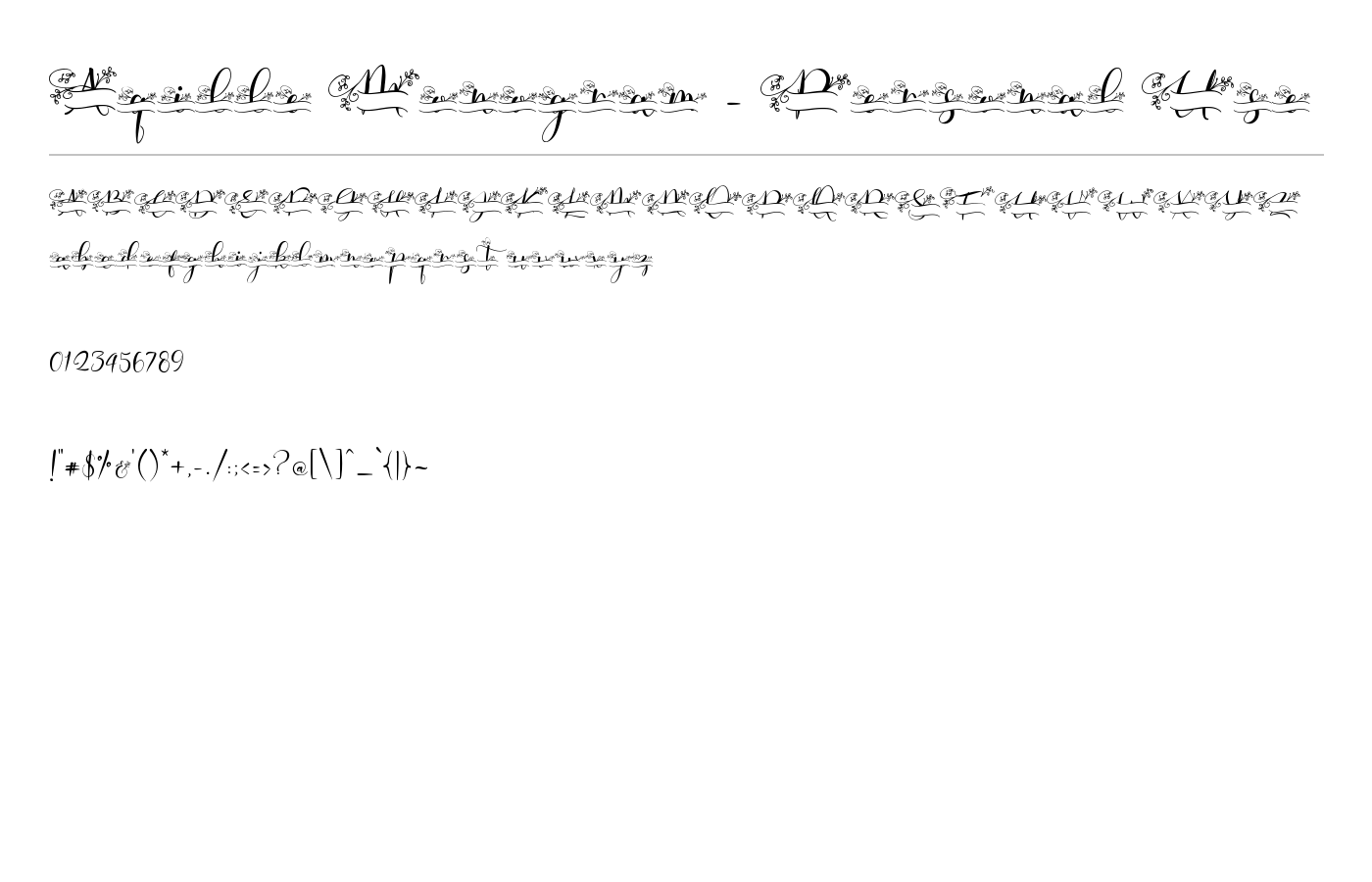
Aqille Monogram is an elegant, decorative script font with delicate flourishes and intricate floral accents, designed to create a refined, personalized feel. Its slender, flowing letterforms and ornamental details make it ideal for monograms, wedding invitations, and luxury branding where a touch of sophistication and charm is desired. This font shines in uses that call for an artistic, handcrafted look, adding a graceful and romantic flair to any project.
Aqille Monogram - Personal Use Font
About Aqille Monogram - Personal Use Font
| Font family | Aqille Monogram - Personal Use Font |
| Designer | Aditiyo Dwi Putranto |